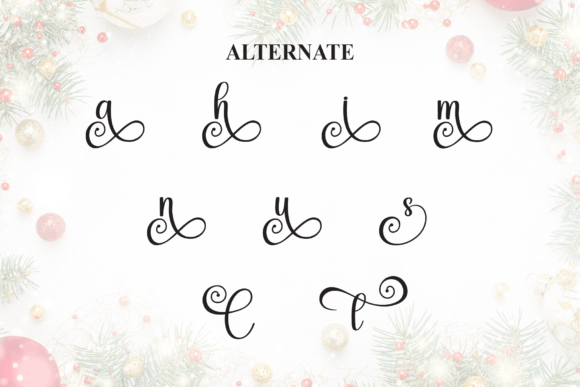
“Christmas” written in an elegant, handwritten style with smooth, flowing lines and a classic, timeless feel. The letters are gracefully connected, giving a warm and festive touch perfect for holiday greetings.